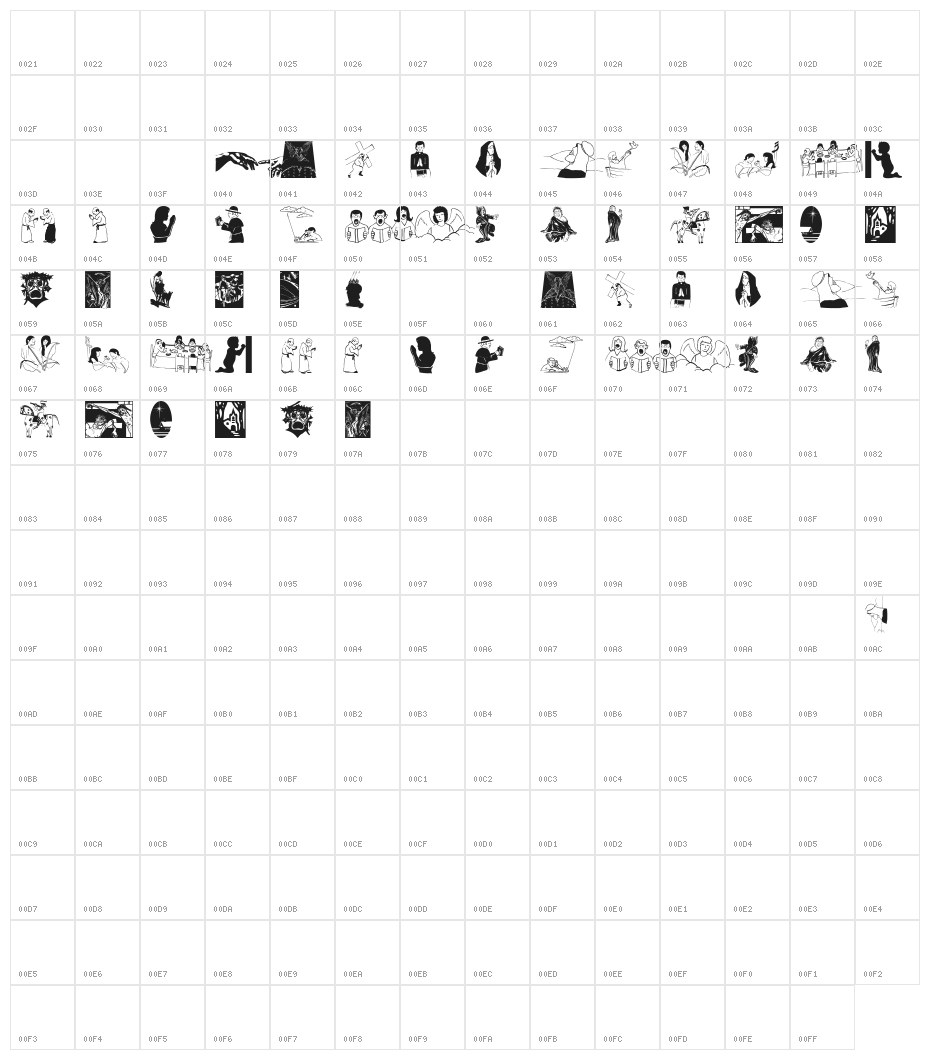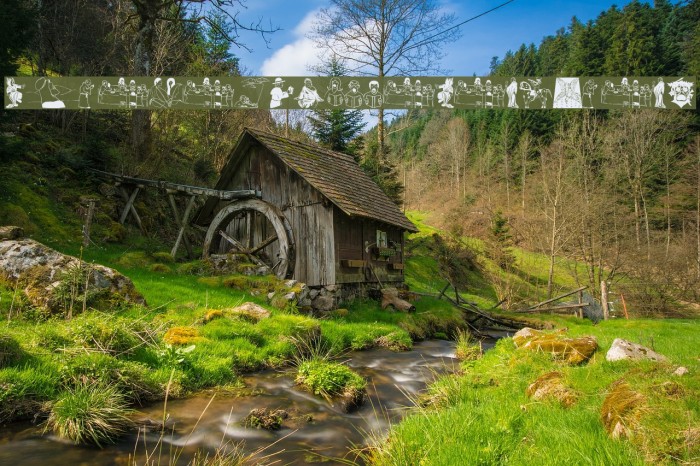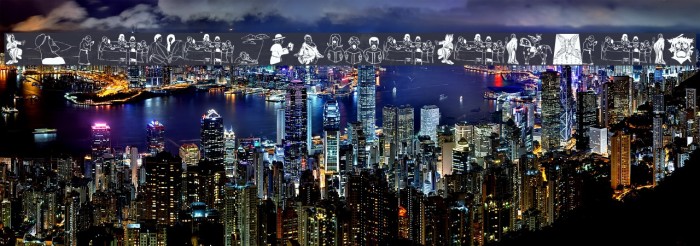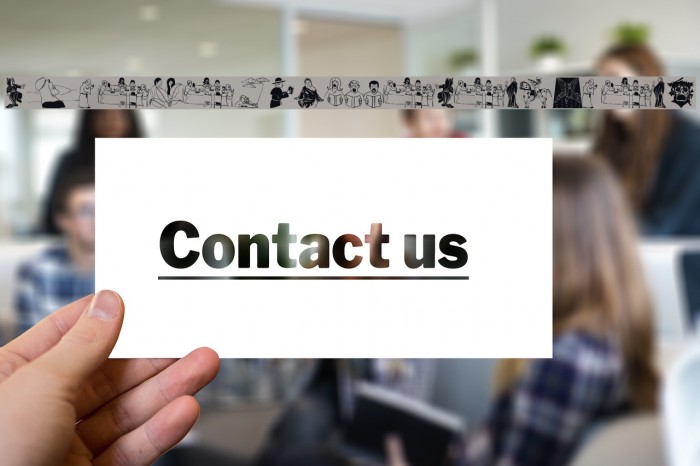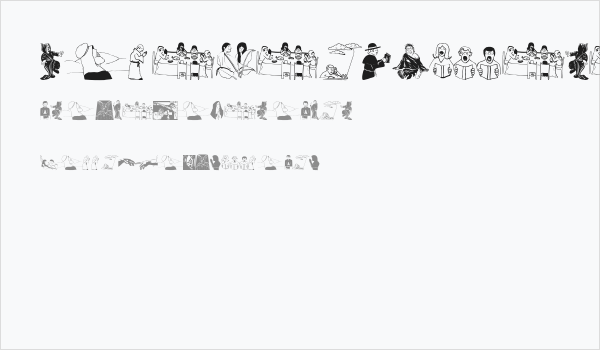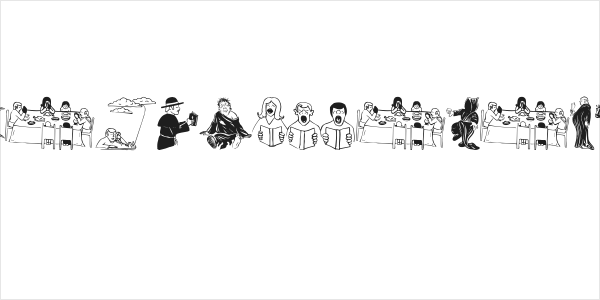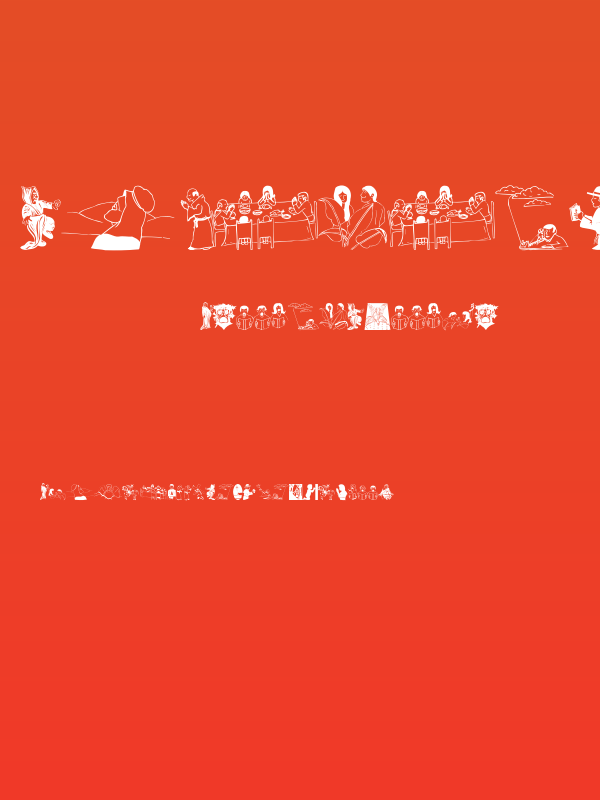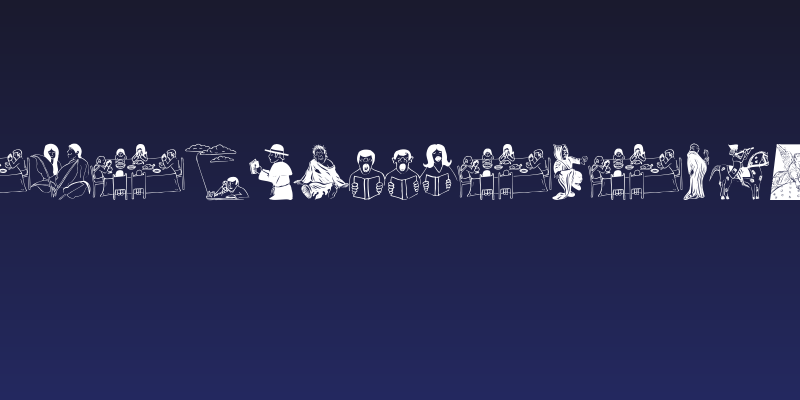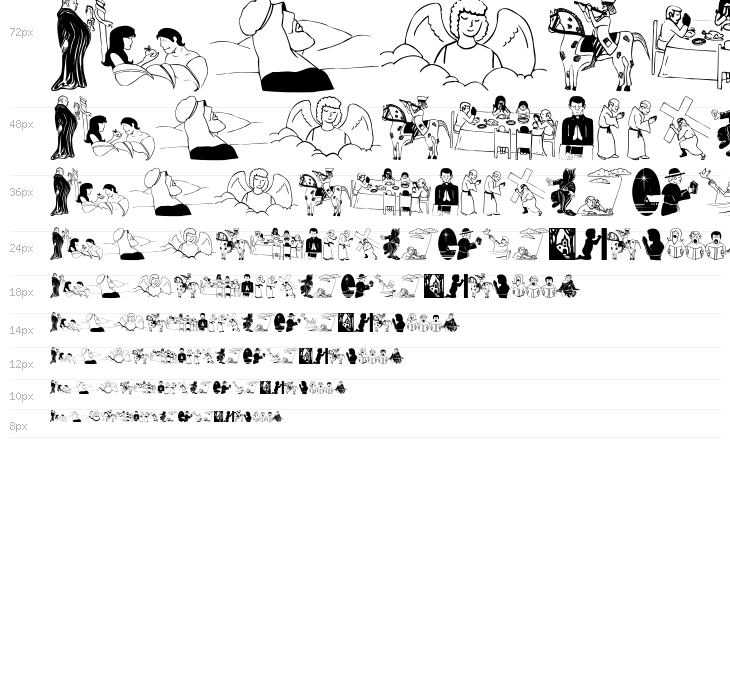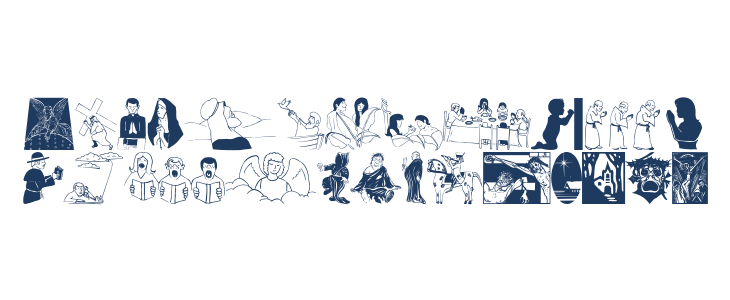
ReligionSpirituality Font
ReligionSpirituality Description
A decorative display font composed of detailed religious and spiritual-themed illustrations representing each character, including figures such as angels, saints, and symbolic scenes. The glyphs are highly pictorial, with a mix of solid black and outlined elements, making each character unique and visually complex.
| Overall Style | Decorative, Thematic, Illustrative |
| Use Case | Headlines, Logos, Themed graphics |
| Proposed Projects | Religious event posters, spiritual book covers, themed invitations, educational materials, decorative headings. |